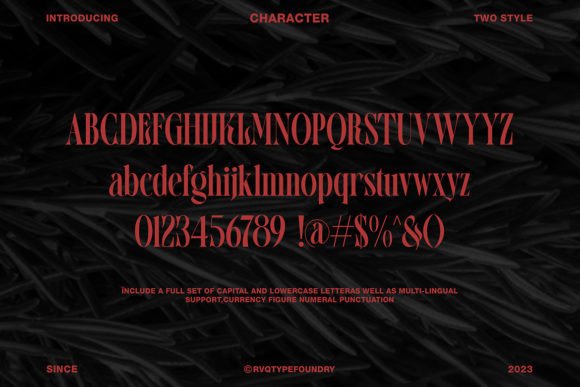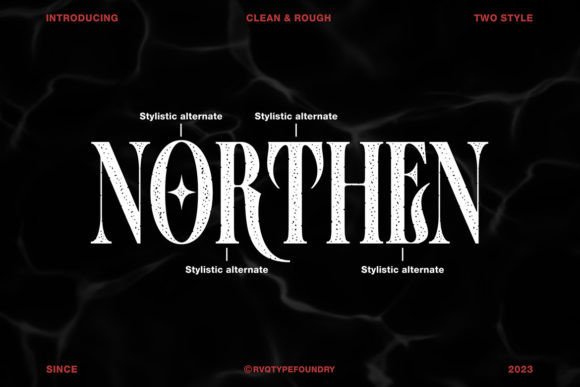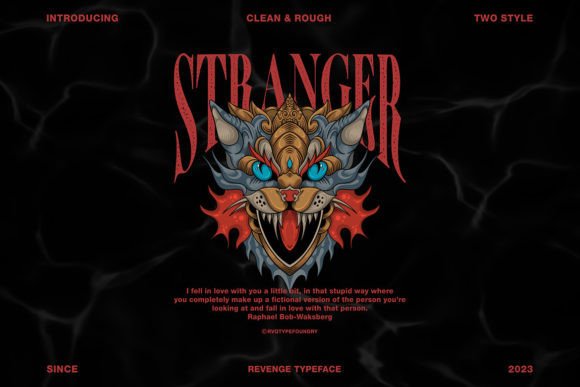
Introduction to Revenge Font
Have you ever been stuck on a design project, struggling to find the perfect combination of style and substance? I know I have. As designers, we’re constantly on the lookout for that special something to elevate our creative projects from ordinary to extraordinary. And that’s exactly what the Revenge Font offers – a unique blend of clean and rough styles that can add a touch of sophistication and whimsy to any design idea.
With its dual-purpose design, the Revenge Font is a versatile resource for designers of all levels. Whether you’re working on a high-quality print project or a digital design, this font is sure to impress. And the best part? It’s free to download, making it an accessible design resource for anyone looking to take their creative project to the next level.
From a transparent background to a bold statement, the Revenge Font is a valuable addition to any designer’s toolkit. So why settle for a bland, generic font when you can unleash the power of the Revenge Font and take your designs to new heights?
Key Features of Revenge Font
- High-quality font design with a unique, edgy aesthetic, perfect for creative projects.
- Resolution-independent design, ensuring crisp and clear text at any size or resolution.
- Perfect for use in digital design, print projects, or web development, adding a touch of sophistication and style.
Honest Review: Revenge Font
I recently stumbled upon the Revenge Font, and I must say, it’s a gem in the design world. This font is perfect for those who want to add a touch of elegance and sophistication to their creative project. The free download option is a major plus, making it accessible to designers of all levels.
- ✨ High quality design: The Revenge Font is well-crafted, with smooth lines and a clear, readable font face.
- ✨ Versatile: The Revenge Font can be used for a wide range of design applications, from logos to web design.
- ⚠️ Limited font weights: The Revenge Font only comes in a few weights, which may limit its use in certain design scenarios.
- ⚠️ Not suitable for all design styles: The Revenge Font has a distinct, elegant look that may not be suitable for all design styles or themes.
Overall, I’m impressed with the Revenge Font as a design resource. It’s a high-quality font that can elevate any creative project. While it has some limitations, its strengths far outweigh its weaknesses, making it a valuable addition to any designer’s toolkit.
Common Use Cases for the Revenge Font
The Revenge Font is perfect for use in graphic design, branding, and digital marketing. It’s also great for creating posters, flyers, and social media graphics. With its high-quality design and free download, the Revenge Font is a valuable resource for any designer or creative professional.